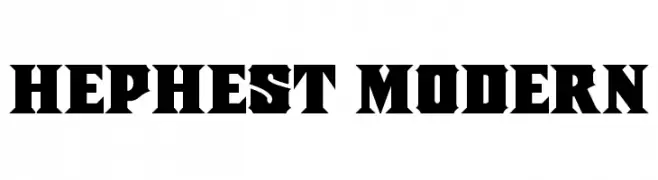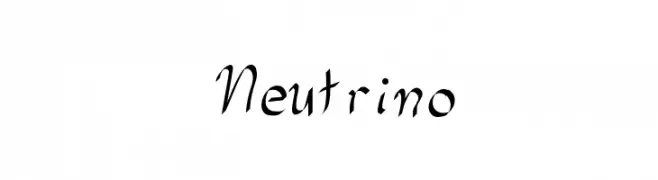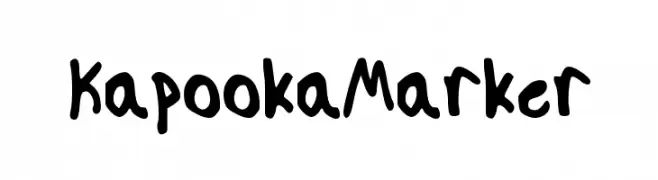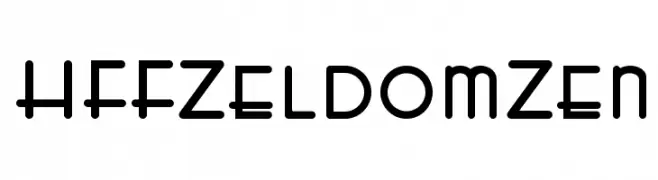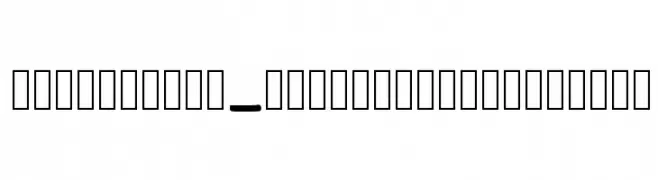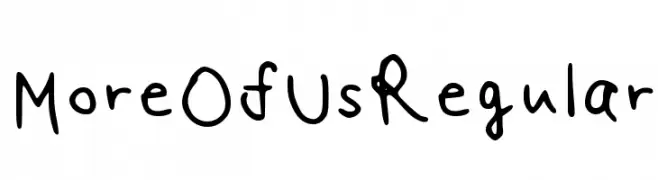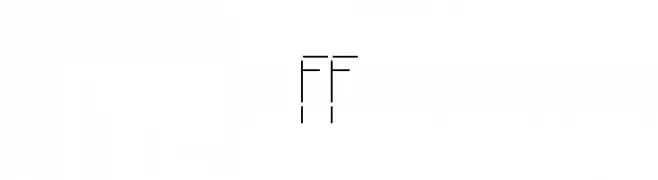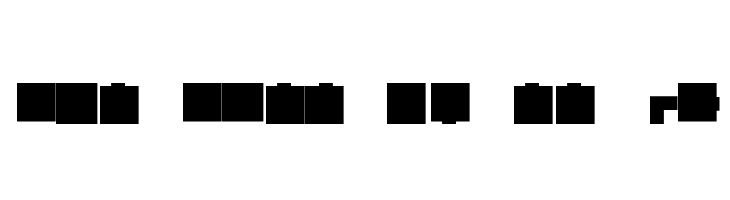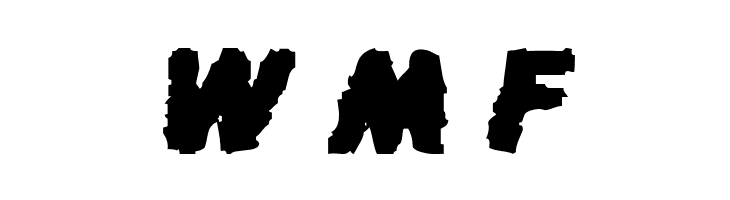
( HealthyFood )
A bold, angular font with a modern, geometric style.
( HeHoo )
An artistic, calligraphic font with dynamic strokes and elegant style.
( HeHoo )
A playful, handwritten-style font with bold, irregular strokes.
( HeHoo )
A playful, handwritten font with uneven strokes and a casual style.
( Have Fun with Fonts )
A playful, modern font with bold, rounded characters and geometric style.
( Havanese Fonts )
A playful, bold handwritten font with rounded, irregular characters.
( Havanese Fonts )
A playful, casual handwritten font with irregular strokes and an organic flow.
( Hassan sardar )
A geometric, futuristic font with linear and angular design.
( Harshnoiseproductions - www.facebook.com/harsh-noise-productions-545325858860919/ )
A bold, handwritten font with a playful and informal style.
( Harris Type - www.harristype.com/ )
A bold, high-contrast decorative font with dramatic serifs and curves.